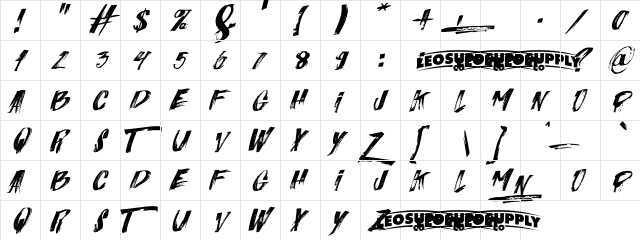
Italiano Font Preview
Italiano Italiano
Design Context for Italiano Typeface
Italiano is a composed and adaptable typeface that performs quietly and consistently across a wide range of design contexts.